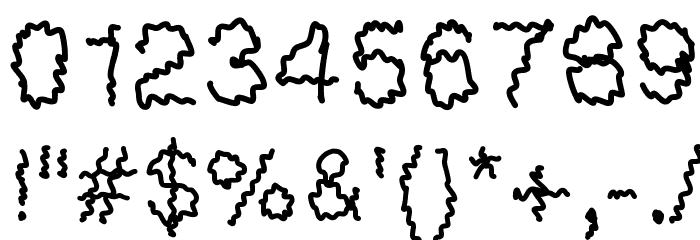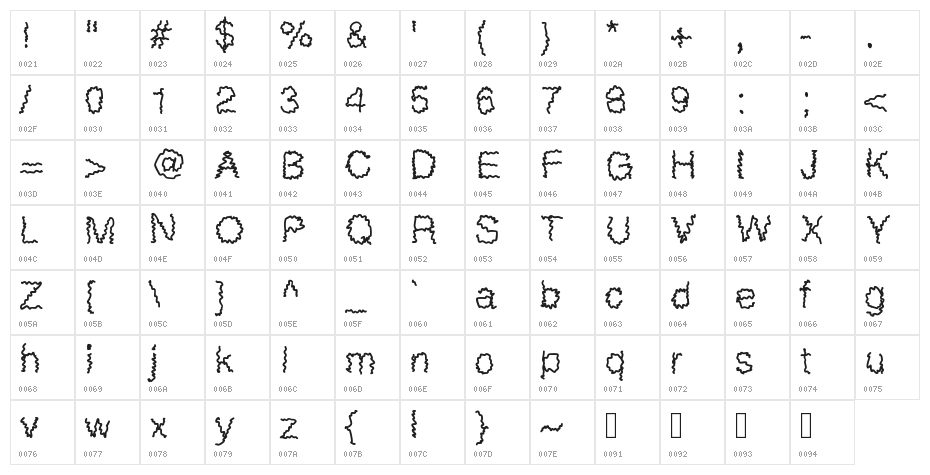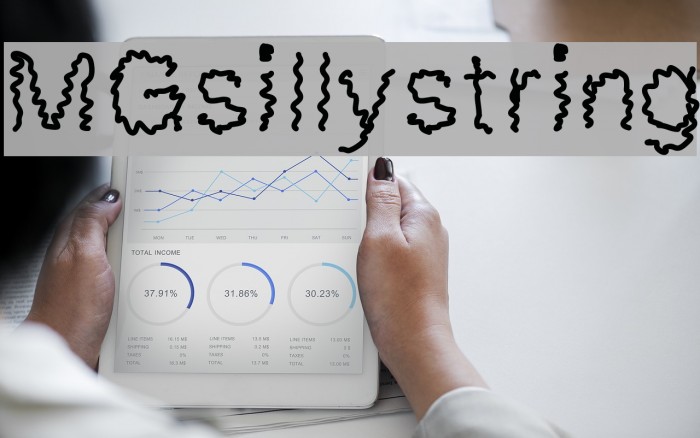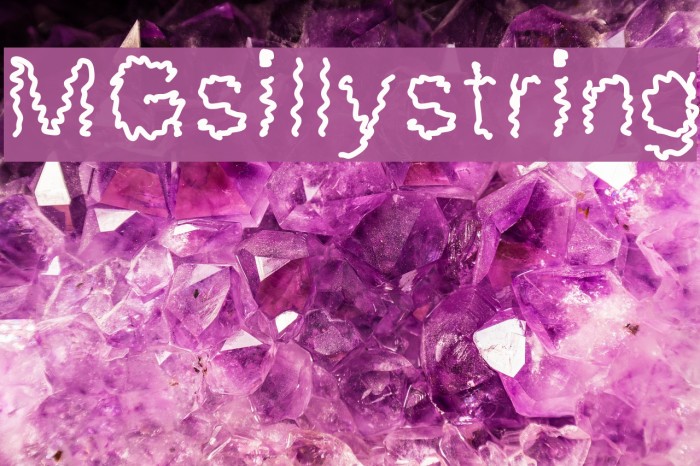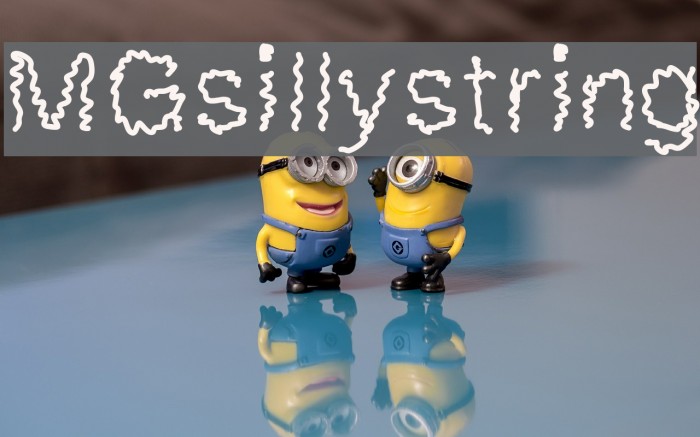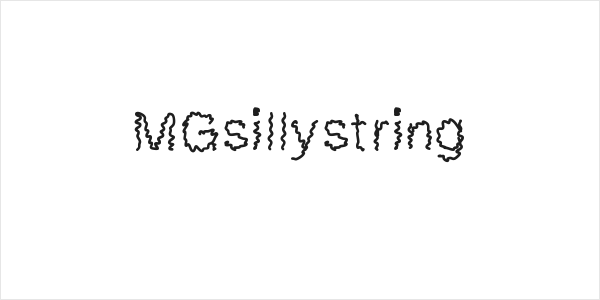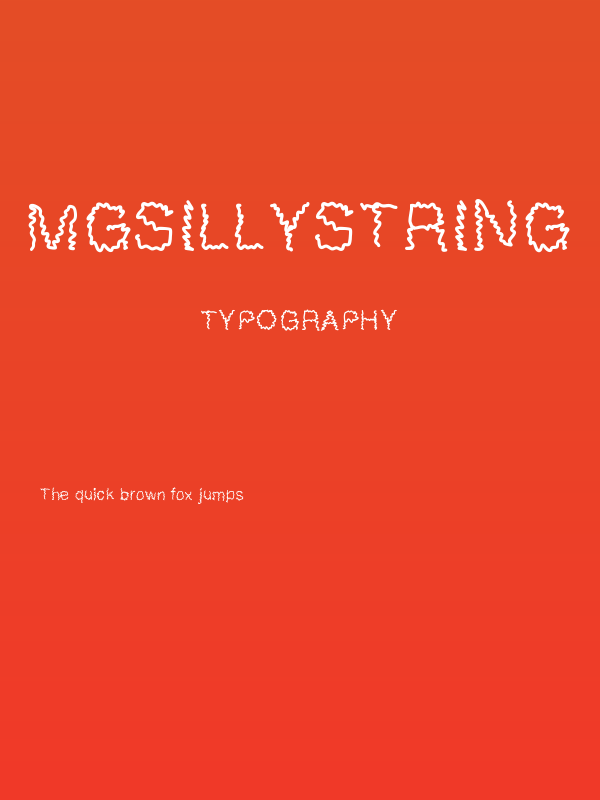
MGsillystring Font
MGsillystring Description
This playful and whimsical font features a unique, wavy design that resembles strands of silly string. Each character is crafted with a series of irregular, squiggly lines, giving it a dynamic and lively appearance. The font maintains a consistent thickness throughout, with no significant contrast between strokes. Its quirky style makes it stand out, perfect for projects that require a fun and informal touch. The characters are evenly spaced, ensuring readability despite their unconventional shapes. This font is ideal for creative projects where a sense of humor and lightheartedness is desired.
| Overall Style | Whimsical |
| Proposed Projects | Great for children's book covers, party invitations, playful branding, and creative posters. |